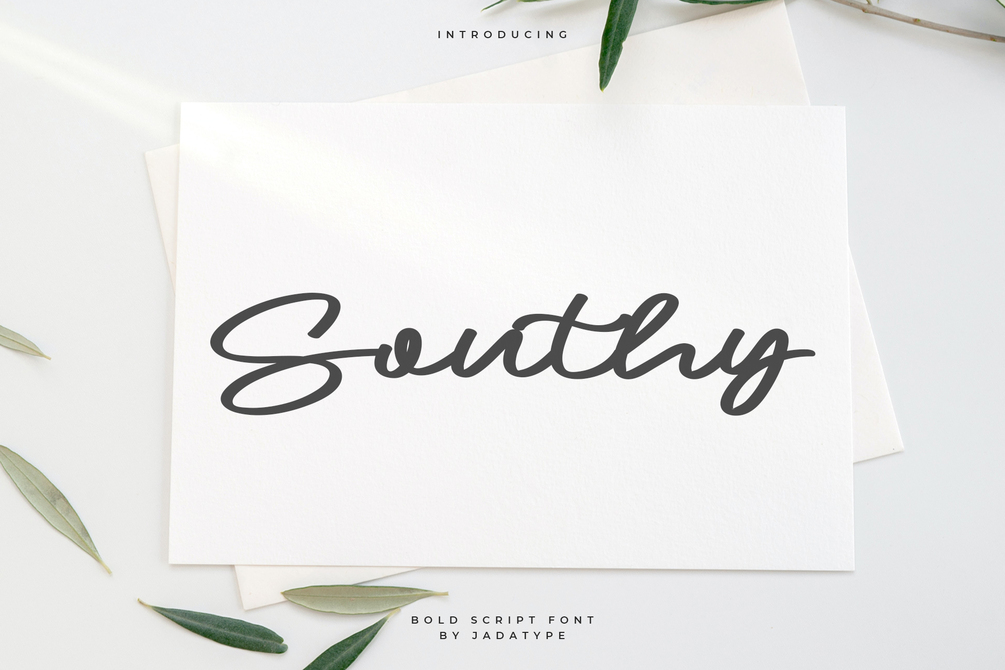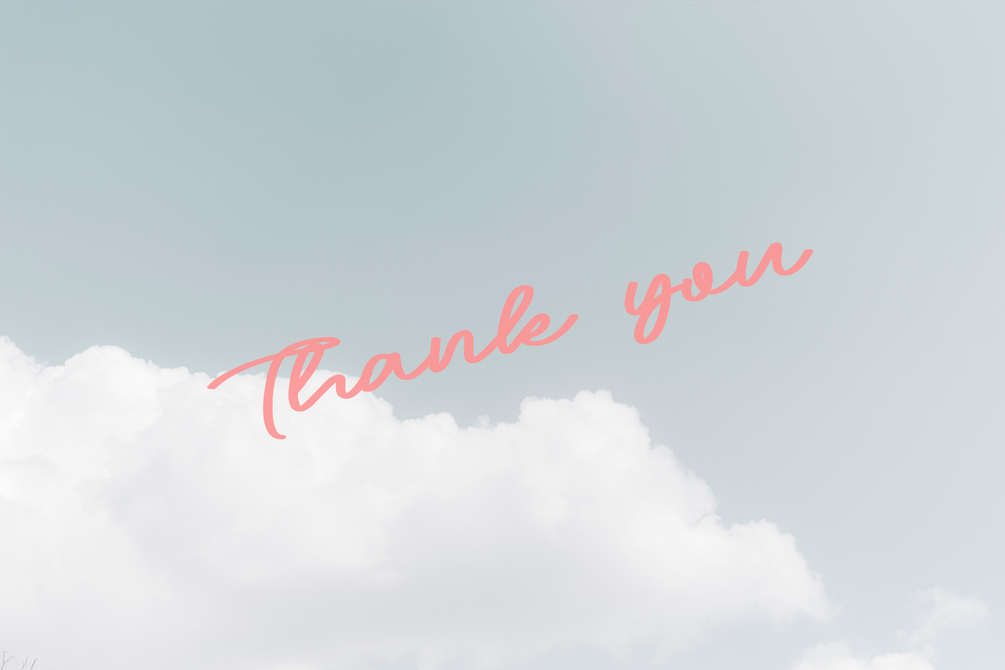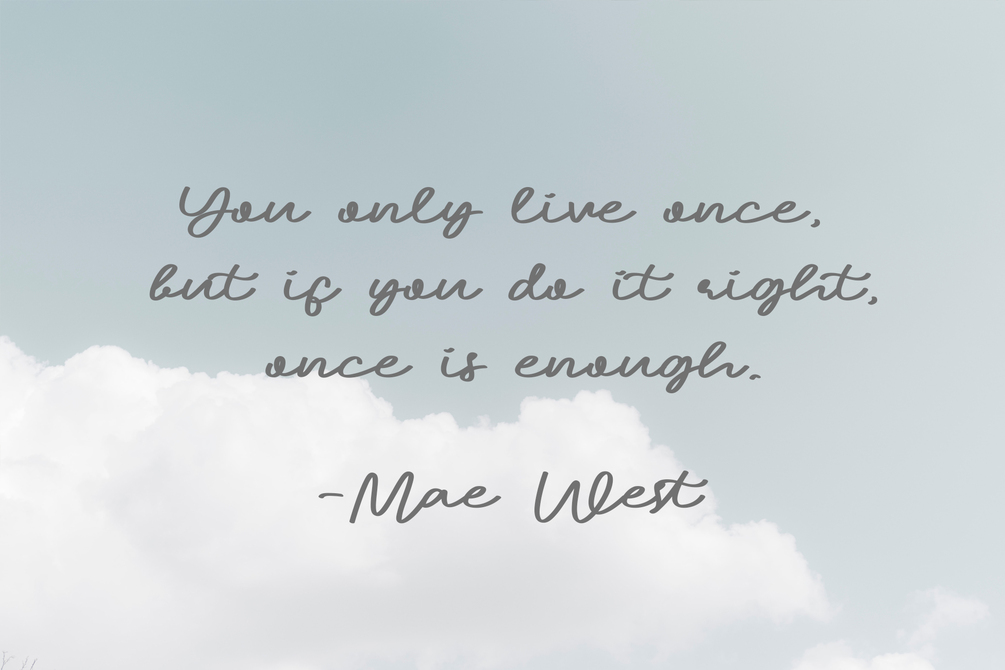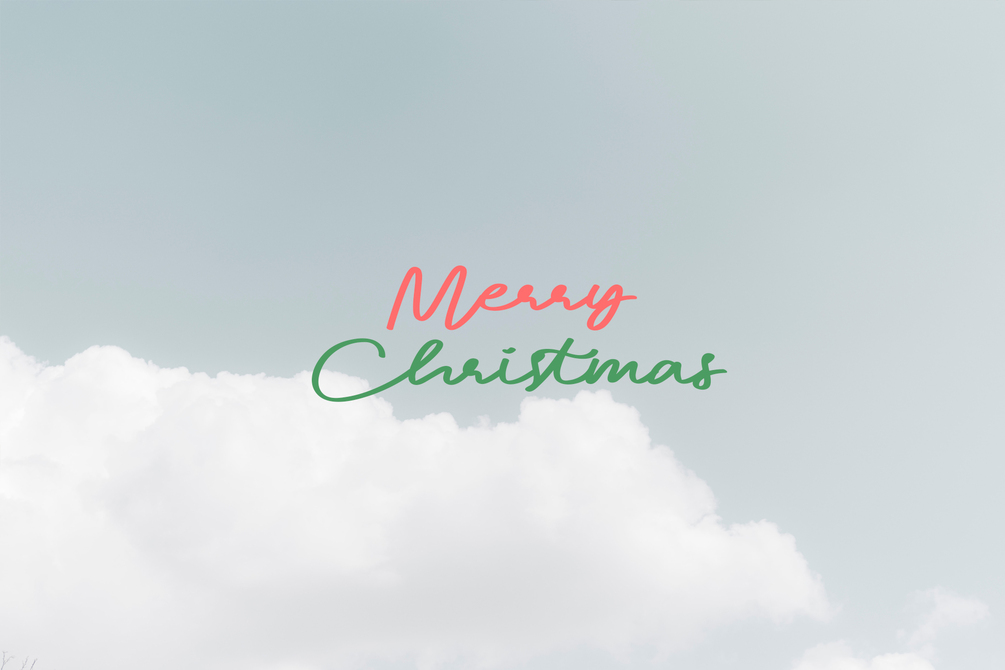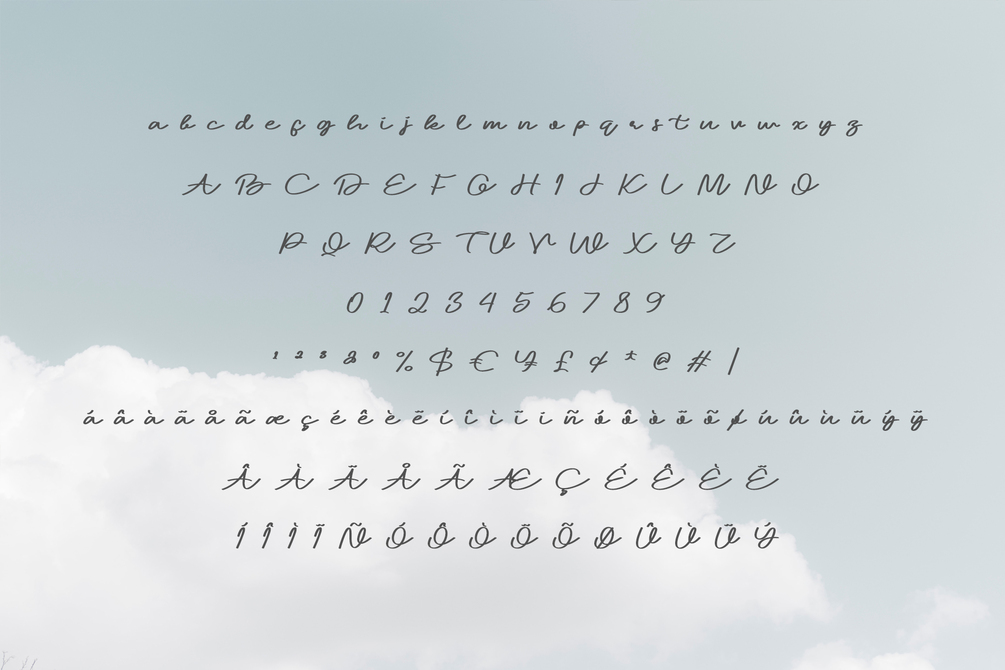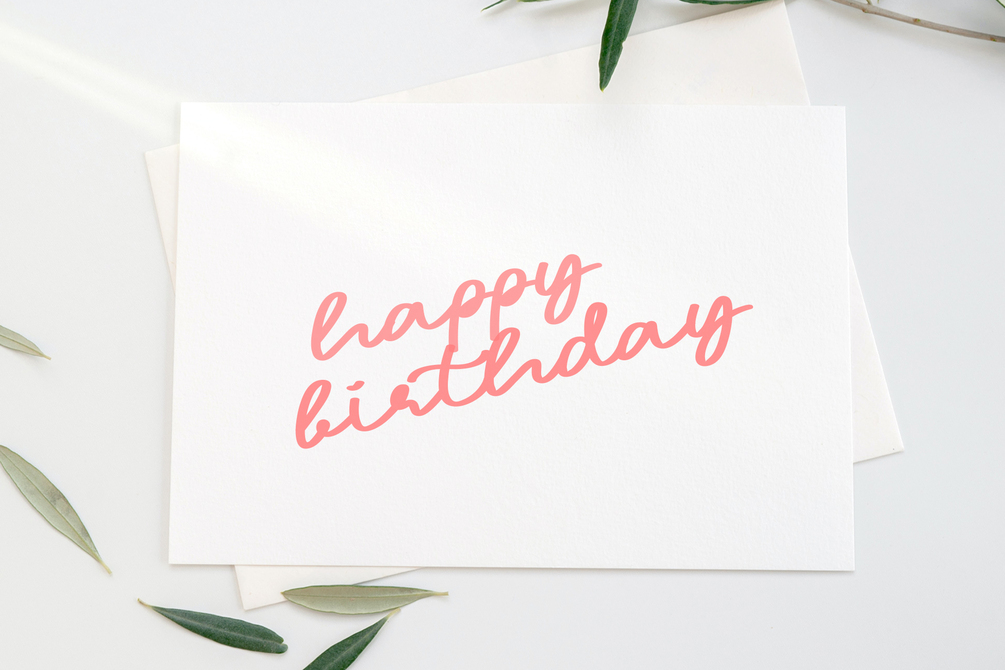
Southy Font
Southy is a script font with bold lines. suitable to be used as a support for your designs, logotypes, crafts, products, invitation cards, social media needs, books, t-shirts, and the like. contains standard English letters and some that support multilingual support